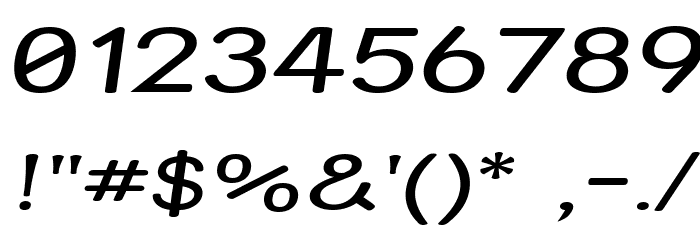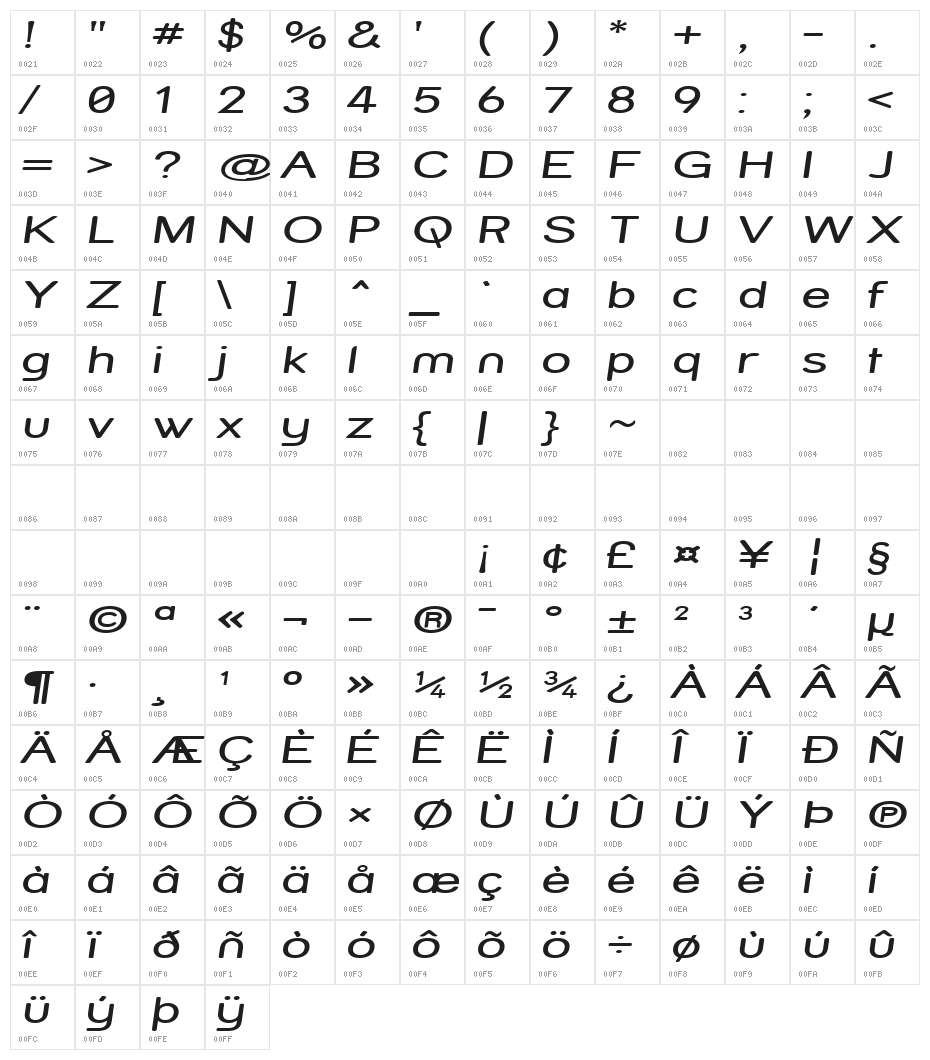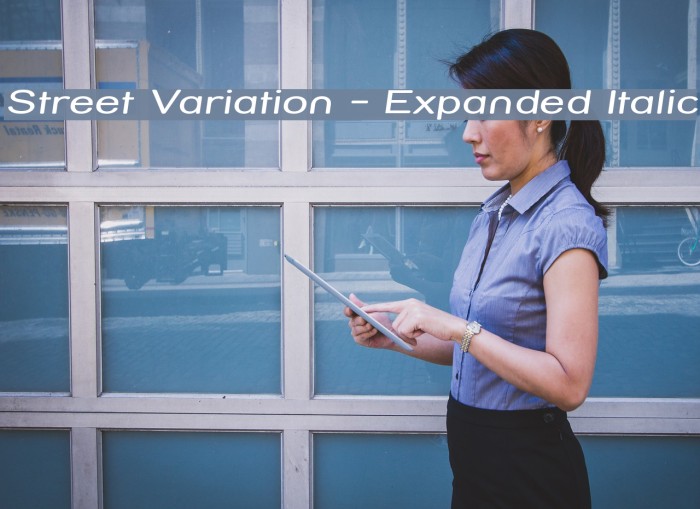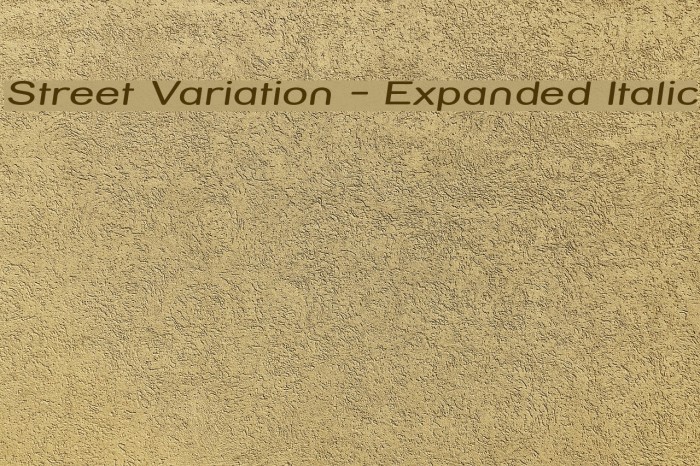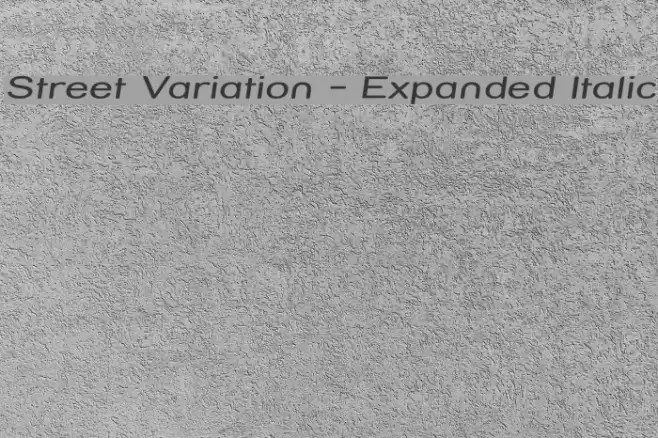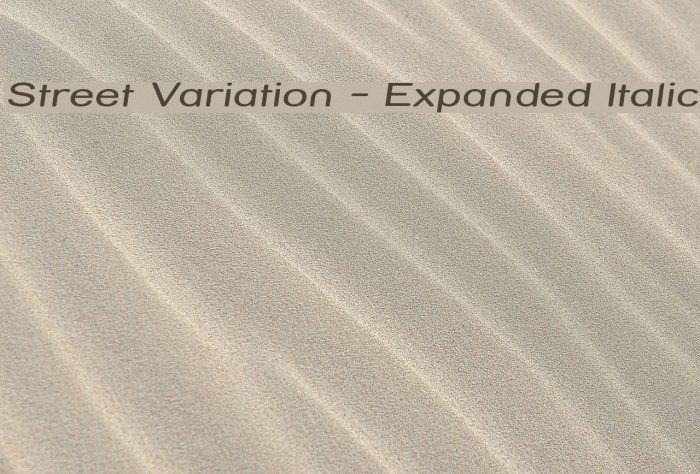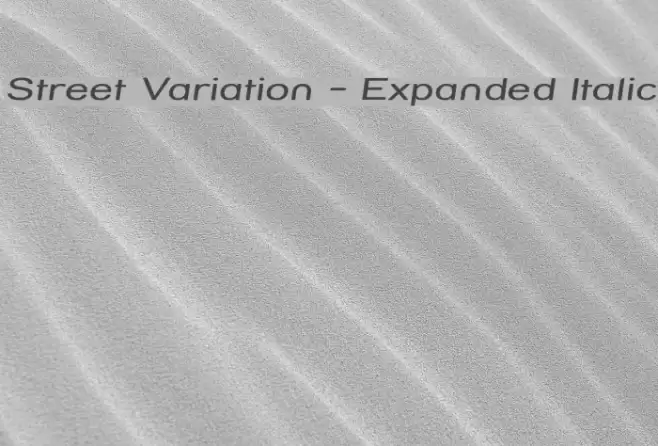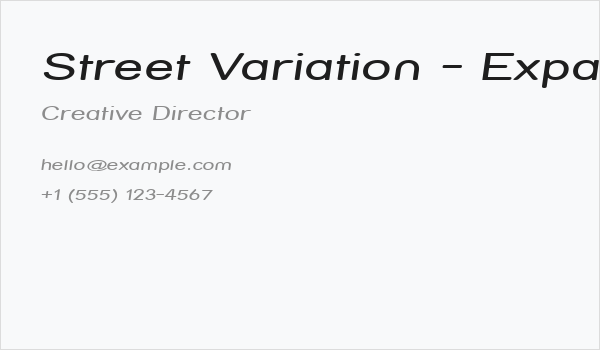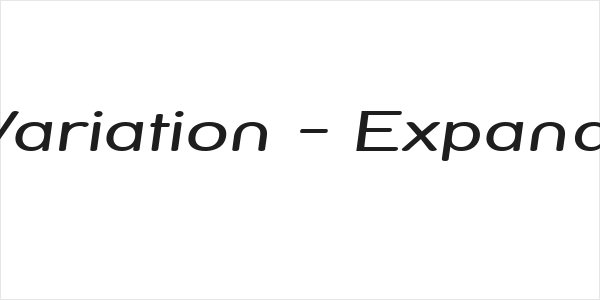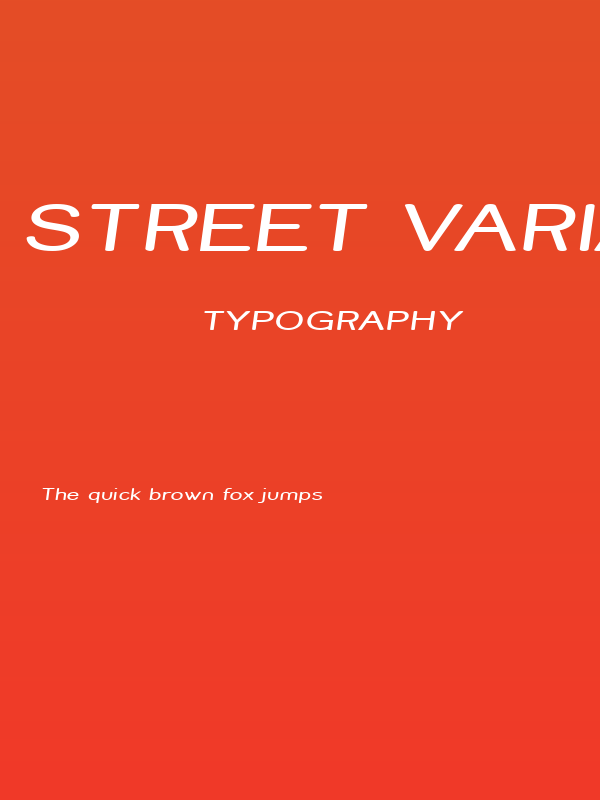
Street Variation - Expanded Italic Font
Street Variation - Expanded Italic Description
This font features a modern, expanded style with a sleek and italicized appearance. The characters are well-defined with a smooth, flowing design that enhances readability while maintaining a stylish look. The uppercase and lowercase letters are evenly proportioned, and the numbers are clear and distinct. Special characters are included, providing versatility for various uses. The overall aesthetic is contemporary, making it suitable for a wide range of design projects.
| Use Case | Headlines, Logos, Digital content |
| Proposed Projects | Ideal for branding, advertising, and editorial design projects where a modern and stylish look is desired. Suitable for headlines, logos, and digital content. |